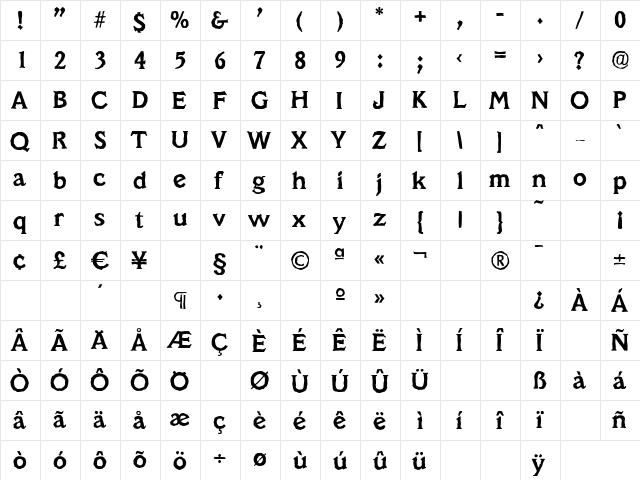
VeracruzAntique Bold
Bold · SoftMaker Software GmbH SoftMaker Software GmbH ·
Foundry SoftMaker Software GmbH
FoundrySoftMaker Software GmbH
DesignerSoftMaker Software GmbH
Design Context for VeracruzAntique Typeface
VeracruzAntique has the warm character of retro typography — evoking diners, record sleeves, and the golden age of print advertising. Its bold stroke weight gives it real presence on the page.